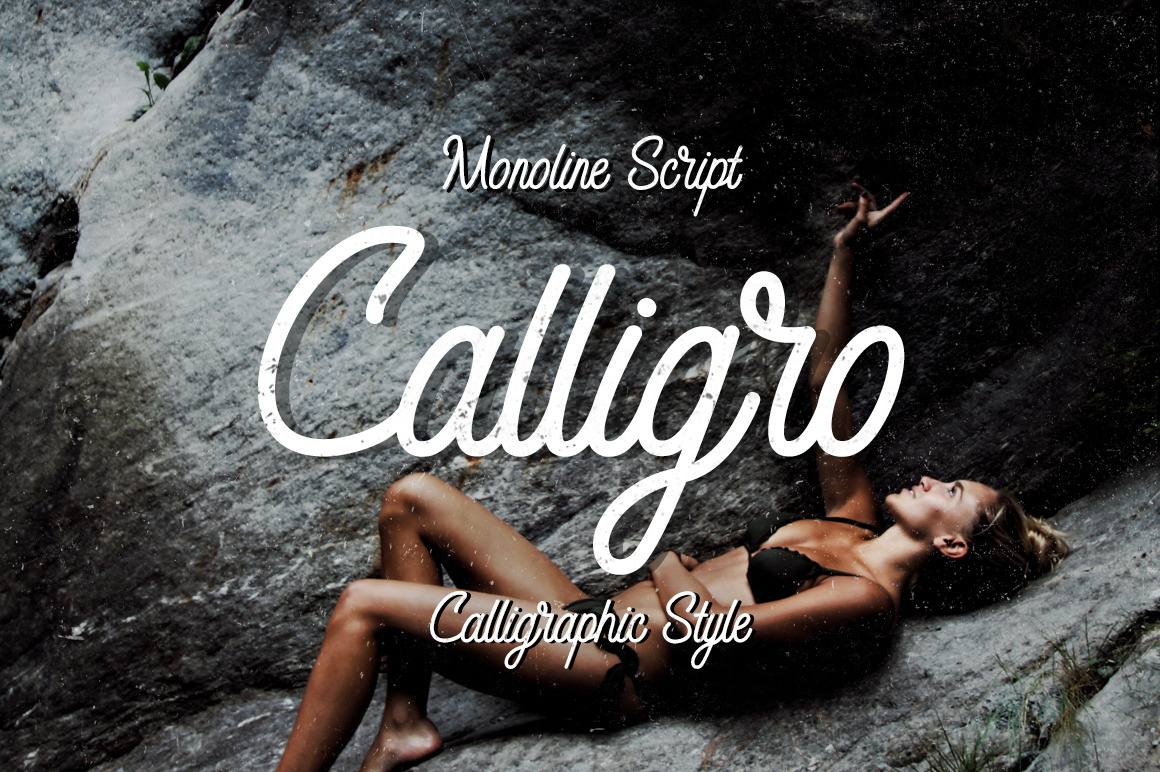
Calligo Monoline Font
๐ข Handwritten Monoline Script - CALLIGRO! ๐ข
๐๐ป This handwritten font is best friend of travel filmmakers and photographers, graphic designer and lettering artists
The font is great for cover design, videos, logo and poster design! It is also perfect for type designers since script provides original letter forms!
Roman Alphabet
Supports other languages
Number
Easy to use